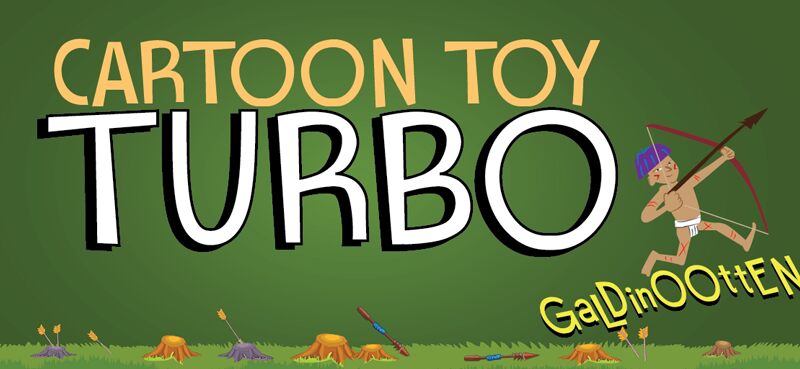
Cartoon Toy Turbo Italic
Cartoon Toy Turbo Italic font by Galdino Otten Fonts is a modern version inspired by the classic wavelengths design. This industrial-looking mono-spaced typeface mixes contemporary and dynamic edges, allowing an interesting visual contrast to any character defined using it. Each symbol is also designed on the same basis and integrates into any project when used collectively.
Use this free display font for stylish and eye-catching magazine covers, bold posters, elegant postcards, crisp websites design, or attention-grabbing billboard designs. Other suggested uses include typography-centric book covers designs, package design projects that stand out from the ordinary, or balanced display typography for tablets or smartphone games.